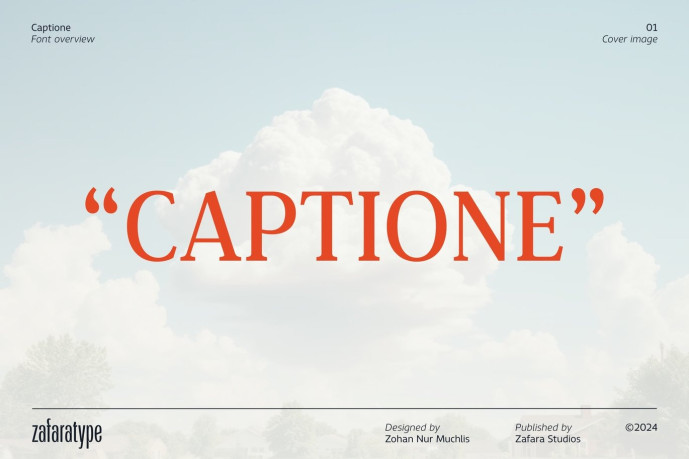
Captione is a classic old style serif font designed to embody a sense of elegance and strength. With its traditional roots and contemporary clarity. Each weight maintains the same elegant design features, with the thinner weights providing a subtle elegance and the heavier ones offering a commanding presence.
283 glyphs: uppercase, lowercase, multilingual, numbers, punctuation, fractions, currency
25 languages: Afrikaans, Albanian, Basque, Catalan, Danish, Dutch, English, Estonian, Faroese, Filipino, Finnish, French, Galician, German, Icelandic, Indonesian, Irish, Italian, Malay, Norwegian Bokmål, Portuguese, Spanish, Swahili, Swedish, Zulu